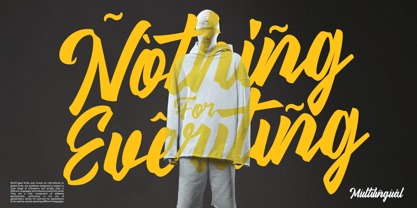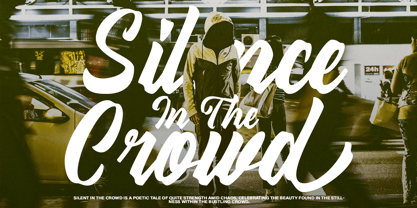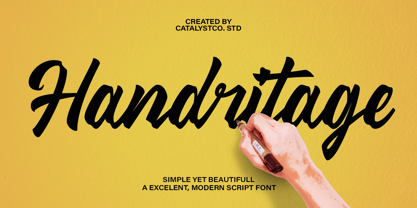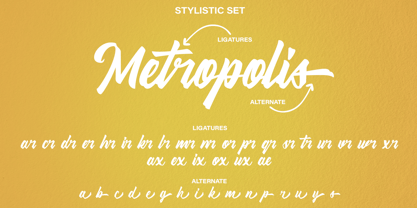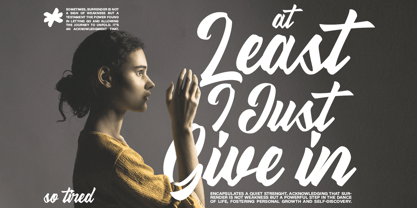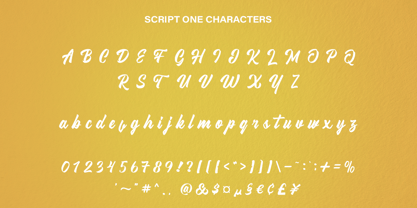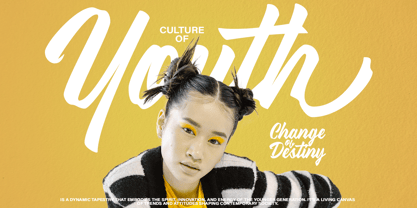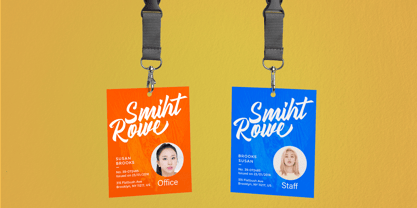
Hendritage
by Catalystco Std
The Hendritage Font Family was designed by and published by Catalystco Std. Hendritage contains 1 styles. More about this family
The Hendritage Modern Script is a premium typeface designed to elevate your creative projects.. Perfect for manufacturing quotes, logotypes, magazine headers, and more, this font brings a professional and refined touch to any design.
With features like OpenType format support, a complete set of uppercase and lowercase letters, stylistic ligatures, alternates, multilingual support, and numerals with punctuation, it ensures adaptability and precision. Whether you're crafting brand identities, editorial layouts, or stand out typography, Hendritage Modern Script delivers exceptional results for polished, high-quality designs.